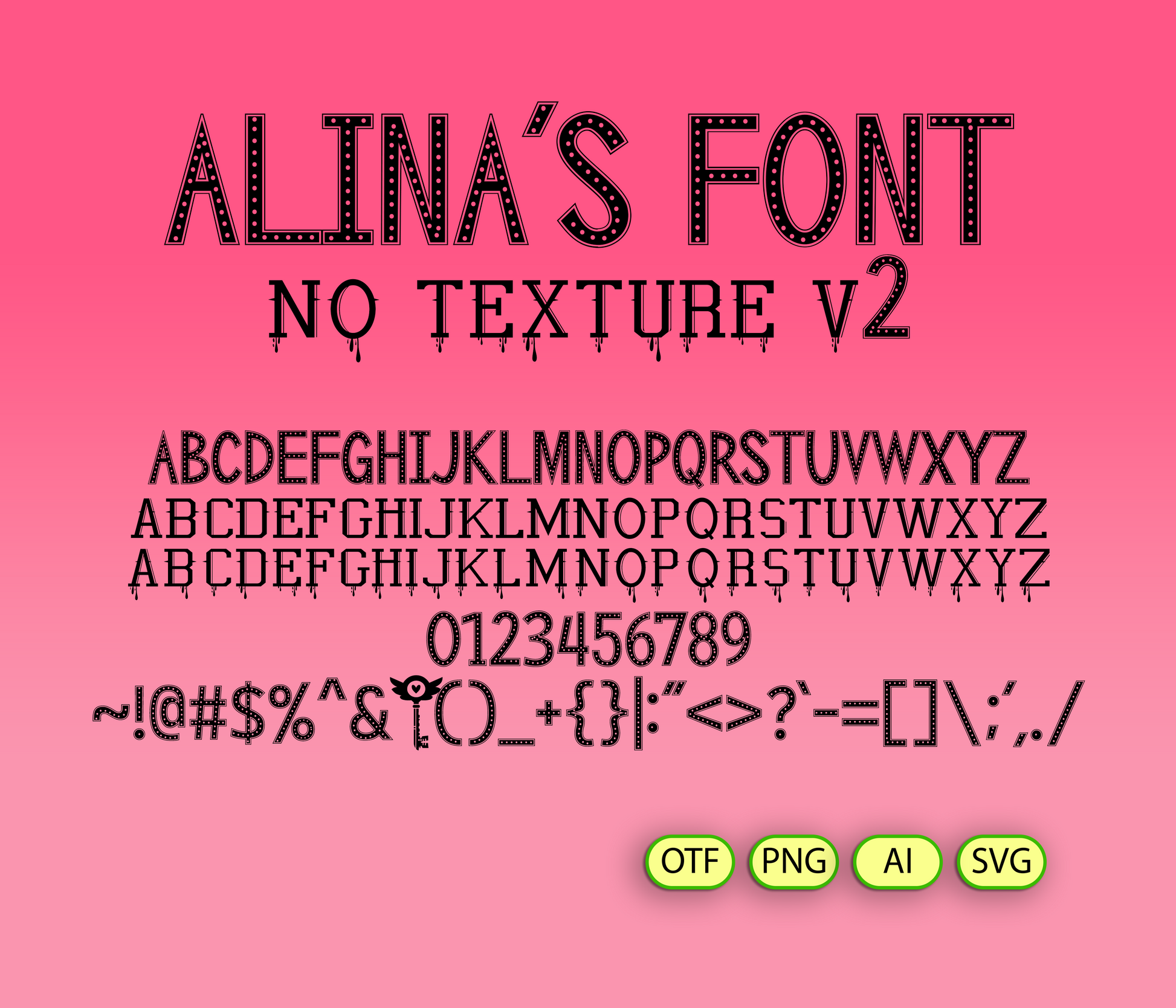
Hellbound Haven Font
Descend into the dazzling world of cabaret afterlife with our Hellbound Haven font, where redemption meets razzle-dazzle. This font captures the essence of a unique establishment where sinners seek salvation through showbiz sparkle. Perfect for vintage enthusiasts, entertainment creators, and designers who want to add some supernatural pizzazz to their projects.
Our Hellbound Haven font showcases the perfect blend of 1920s elegance and netherworld flair with its dramatic swoops and devilishly detailed characters. Ideal for:
1. Cabaret Productions: Design spectacular show posters, tickets, and promotional materials that bring the spirit of redemptive entertainment to life.
2. Theme Parties: Create invitations, decorations, and signage for events that combine vintage glamour with supernatural charm.
3. Digital Storytelling: Enhance your online presence with headers, thumbnails, and graphics that capture the essence of hellish hospitality.
4. Artistic Projects: Perfect for fan art, comic strips, and creative works inspired by the adventures of reformed sinners.
5. Entertainment Venues: Add a touch of otherworldly class to nightclub promotions, theater productions, and themed experiences.
Our font embodies the spirit of entertainment in the afterlife, where every letter tells a story of redemption with a dash of jazz-age panache. Whether you're designing show materials, creating merchandise, or adding some infernal elegance to your projects, this font strikes the perfect balance between heavenly artistry and hellish charm. Ready to give your designs a taste of the most entertaining spot in the netherworld? This font is your express ticket to devilishly good design.